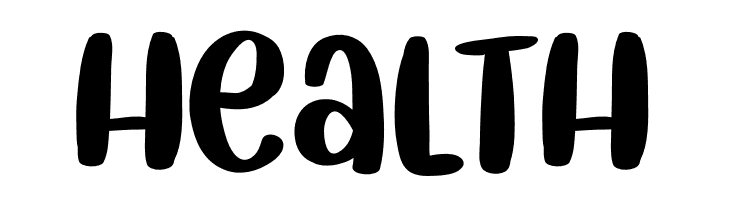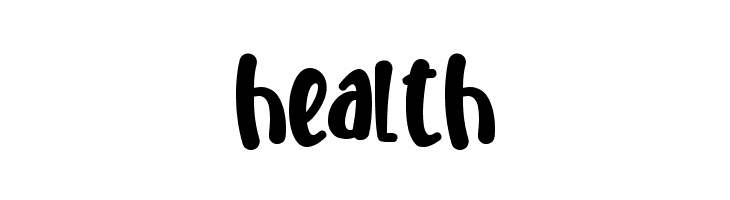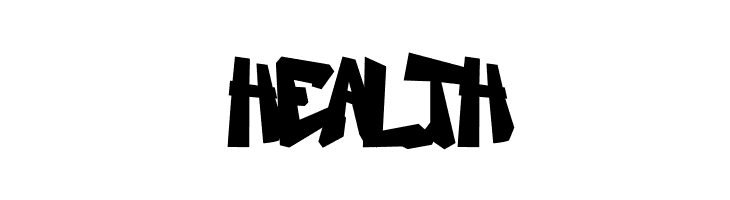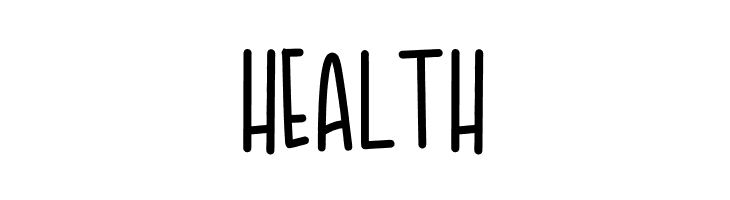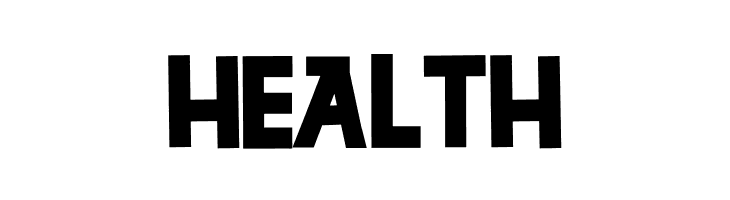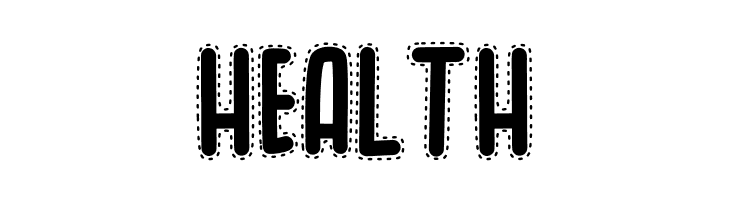
A playful and elegant script font with a handwritten style.
A playful and energetic handwritten font with smooth, flowing lines.
A playful and energetic script font with bold, fluid strokes.
A playful, handwritten font with bold, rounded characters.
A playful handwritten font with heart-shaped dots and smooth, rounded letters.
A playful, handwritten font with a modern and friendly appearance.
A lively, handwritten font with a playful and dynamic style.
A whimsical and decorative script font with intricate loops and flourishes.
A bold, playful font with rounded, whimsical characters and subtle cutouts.
A playful, whimsical script font with smooth, flowing lines and a handwritten feel.
A playful and whimsical script font with flowing, cursive letterforms.
A bold, cursive font with a playful and energetic style.
A playful, bold, and bubbly extruded font with a three-dimensional style.
A bold, playful script font with a modern, handwritten feel.
A lively, expressive handwritten font with fluid strokes and artistic flair.
A playful, bold, and hand-drawn style with dynamic strokes.
A whimsical and decorative font with flowing, cursive-like strokes and playful flourishes.
A delicate, flowing script font with elegant cursive letterforms.
A playful, handwritten font with rounded edges and a casual style.
A bold, decorative font with star-adorned characters, perfect for playful designs.
A playful, bold font with rounded, thick strokes and a whimsical flair.
A playful, outlined font with bold, rounded characters.
A playful and elegant script font with a handwritten style.
A whimsical and playful script font with decorative swirls and loops.
A playful, hand-drawn script font with bold, rounded characters and whimsical flourishes.
A bold, cursive font with a flowing, handwritten style.
A playful and elegant handwritten script font.
A lively and expressive handwritten font with fluid, dynamic strokes.
A whimsical, cursive font with flowing, artistic strokes.
A playful handwritten font with a mix of slender uppercase and cursive lowercase letters.
A graceful and romantic script font with intricate loops and swashes.
A playful, handwritten font with a whimsical and dynamic style.
A playful, handwritten font with bold, rounded letters and a lively style.
A whimsical, thin-stroked font with a playful and modern design.